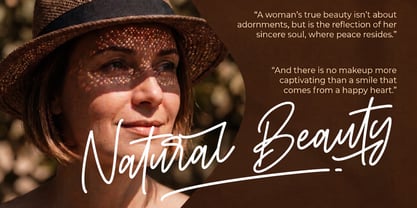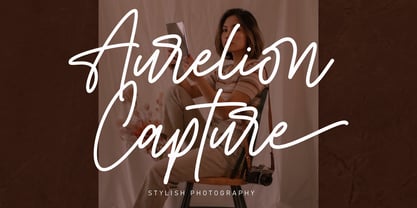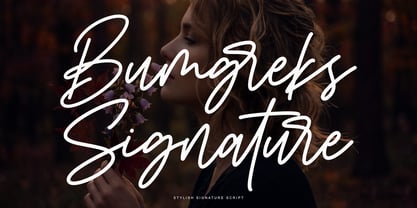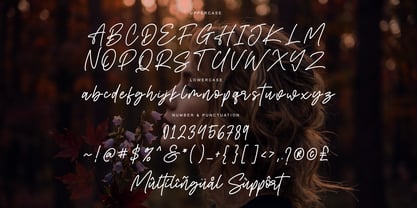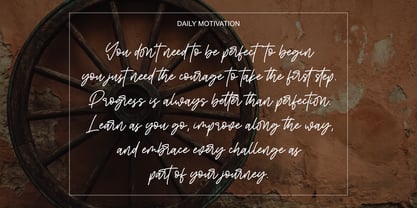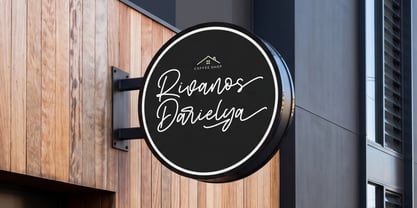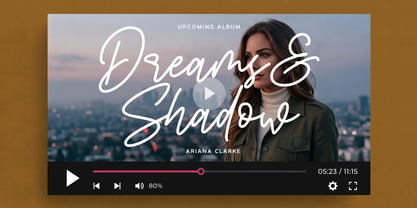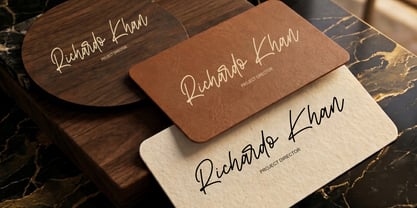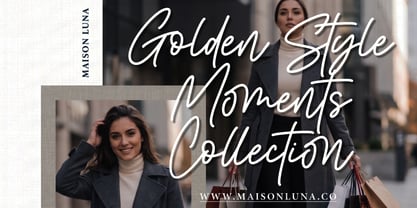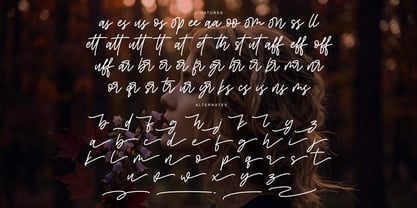
Bumgreks Signature
by Sealoung
The Bumgreks Signature Font Family was designed by Saiful Anwar and published by Sealoung. Bumgreks Signature contains 1 styles.
Bumgreks Signature is a stylish and elegant handwritten script font crafted with a natural flowing stroke and modern signature style. Designed to capture the essence of sophistication and authenticity, this font features smooth curves, balanced proportions, and expressive letterforms that bring a luxurious handwritten feel to any project.
With its clean yet artistic look, Bumgreks Signature is perfectly suited for branding, logos, wedding designs, social media content, product packaging, and high-end editorial layouts. The font delivers a timeless aesthetic that enhances both digital and print designs with a refined and personal touch.
Features
• Uppercase & Lowercase letters
• Numerals & Punctuation
• Smooth natural ligatures
• Stylistic alternates
• Multilingual support
• Elegant signature style
Bumgreks Signature brings a modern handwritten charm with a premium feel, making it an ideal choice for designers looking to create elegant and memorable visual identities.